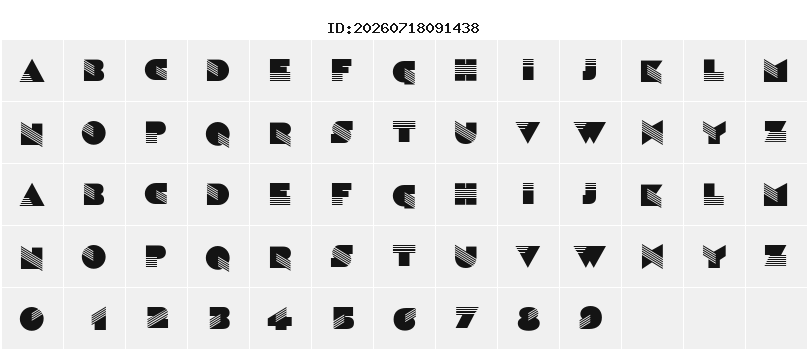
About Cg.ttf
Cg.ttf is a modern, elegant sans-serif font designed for ultimate readability and visual harmony. Perfect for branding, headlines, web design, and print materials.